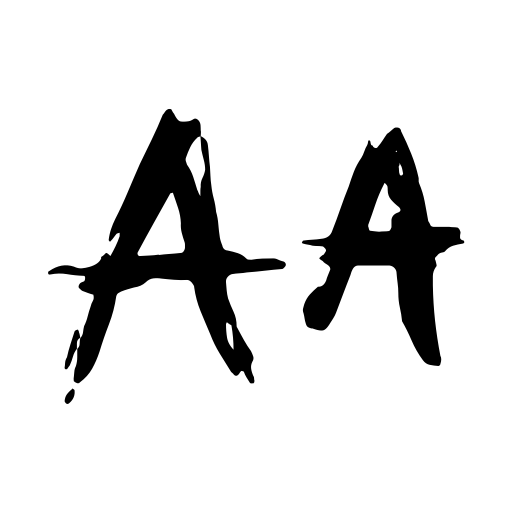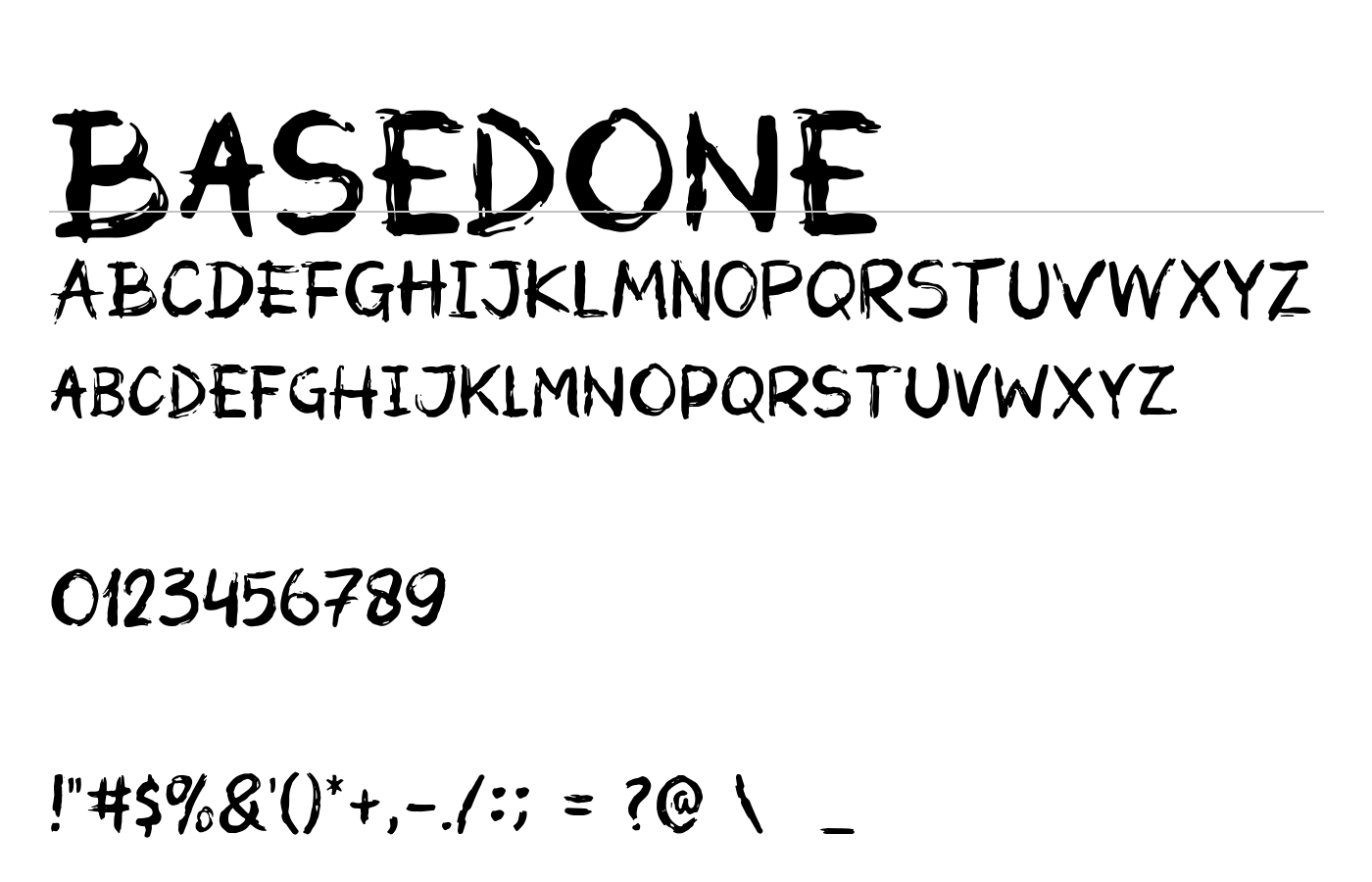
Basedone is a bold, hand-drawn sans serif font with a rough, textured appearance that carries an artistic and edgy vibe. Its uneven strokes and playful irregularities make it ideal for creative projects seeking a unique, informal look, perfect for posters, logos, or branding that wants to stand out with a handcrafted charm. This font brings energy and personality while maintaining good legibility in all caps and numerals.
Basedone Font
About Basedone Font
| Font family | Basedone Font |